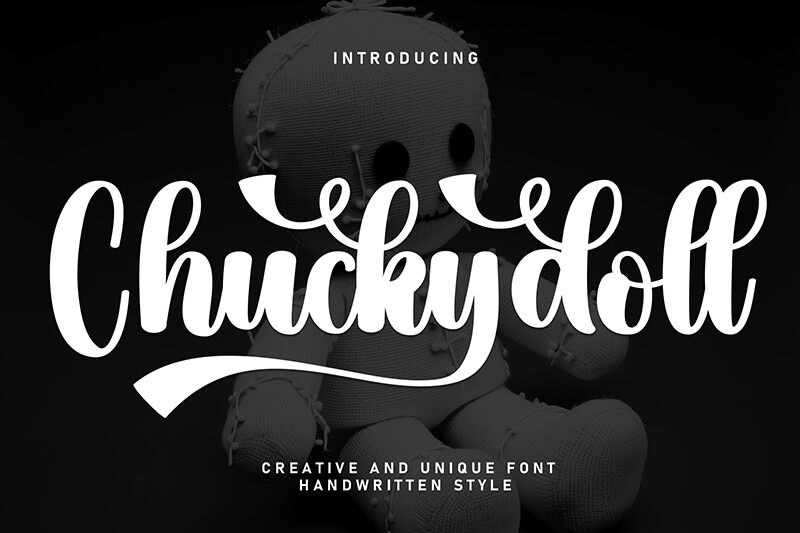
Chuckydoll
Chuckydoll font by Scratchones is a modern script with an elegant brush handwriting style. Its expressive curves flow gracefully allowing the audience to absorb the full message wrapped in a beautiful visual style. Simple and glamorous at a time, it is often a popular choice in projects that need to convey professionalism without giving up on beauty.
Chuckydoll can find its use in all the most popular projects: branding, packaging, posters, business cards, advertisements, flyers, invitations, emails etc. Highlight what’s important with this free calligraphy font and change the tone of any project towards something more stylish and captivating.